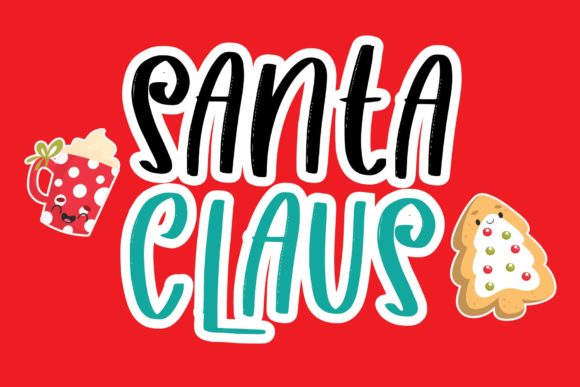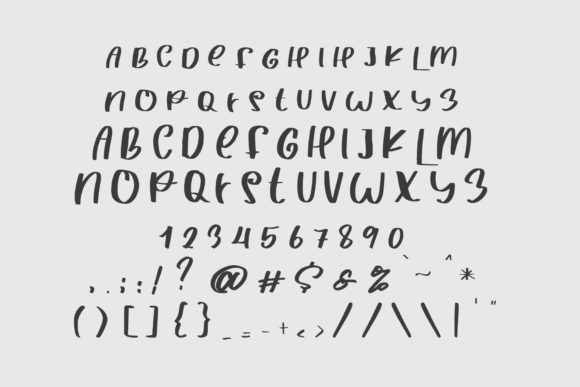
Introducing Christmas Giveaway Font: The Perfect Addition to Your Holiday Designs
Are you looking for a font that captures the essence of Christmas and adds a touch of joy to your designs? Look no further than Christmas Giveaway Font! This delightful display font is perfect for creating stunning Christmas cards, branding, stationery, and more. With its cute style and great readability, Christmas Giveaway Font is sure to become a favorite in your design collection.
What Makes Christmas Giveaway Font So Special?
Christmas Giveaway Font is a joyful display font that boasts a unique and playful style. Its cute and charming appearance makes it perfect for a wide range of design projects, from Christmas cards and invitations to custom art and packaging. The font’s great readability ensures that your message is conveyed clearly and effectively, making it ideal for headlines, titles, and short paragraphs of text.
Endless Design Possibilities with Christmas Giveaway Font
The versatility of Christmas Giveaway Font is one of its most appealing features. This font can be used for a wide range of design projects, including:
- Christmas cards and invitations: Create beautiful and festive holiday cards that will delight your friends and family.
- Branding and packaging: Add a touch of Christmas cheer to your product packaging and branding materials.
- Stationery and journals: Create custom stationery, journals, and notebooks that are perfect for the holiday season.
- Blog design: Add a festive touch to your blog design with Christmas Giveaway Font.
- Custom art and illustrations: Use Christmas Giveaway Font to create custom art and illustrations for your holiday projects.
- Apparel and accessories: Create custom apparel, such as t-shirts, hats, and scarves, with Christmas Giveaway Font.
Why Choose Christmas Giveaway Font?
There are many reasons why Christmas Giveaway Font stands out from other fonts. Here are just a few:
- Unique and playful style: Christmas Giveaway Font has a one-of-a-kind style that will add a touch of personality to your designs.
- Great readability: The font’s clear and legible design ensures that your message is conveyed effectively.
- Versatility: Christmas Giveaway Font can be used for a wide range of design projects, from Christmas cards to custom art.
Tips for Using Christmas Giveaway Font
Here are a few tips for getting the most out of Christmas Giveaway Font:
- Use it sparingly: While Christmas Giveaway Font is perfect for headlines and titles, it’s best to use it sparingly to avoid overwhelming your design.
- Pair it with complementary fonts: Pair Christmas Giveaway Font with complementary fonts to create a unique and visually appealing design.
- Experiment with colors and textures: Don’t be afraid to experiment with different colors and textures to add depth and interest to your design.
| Font Name | Christmas Giveaway Font |
| Author | goodigital |